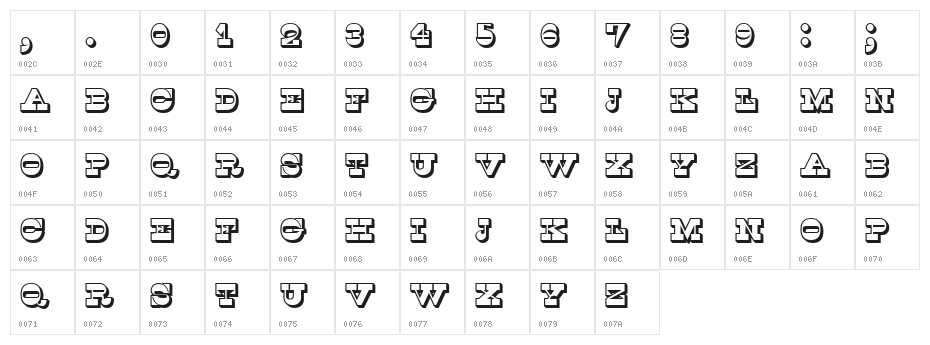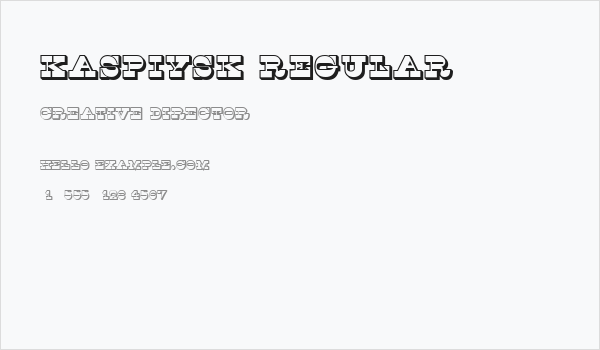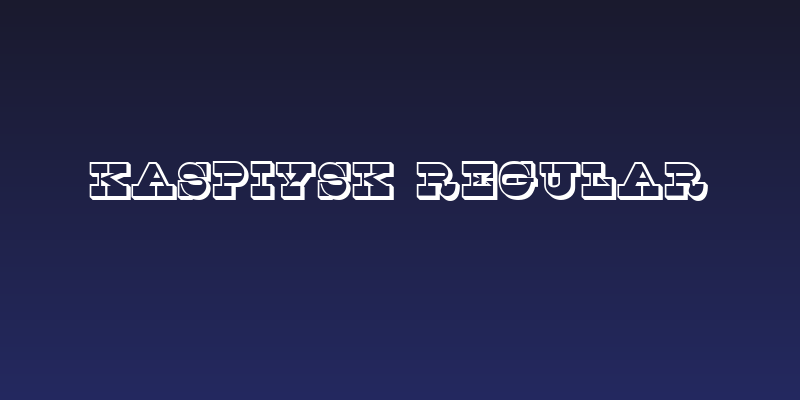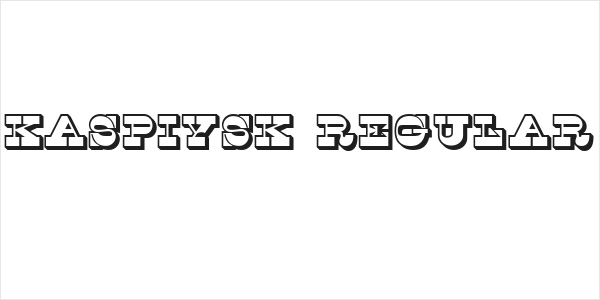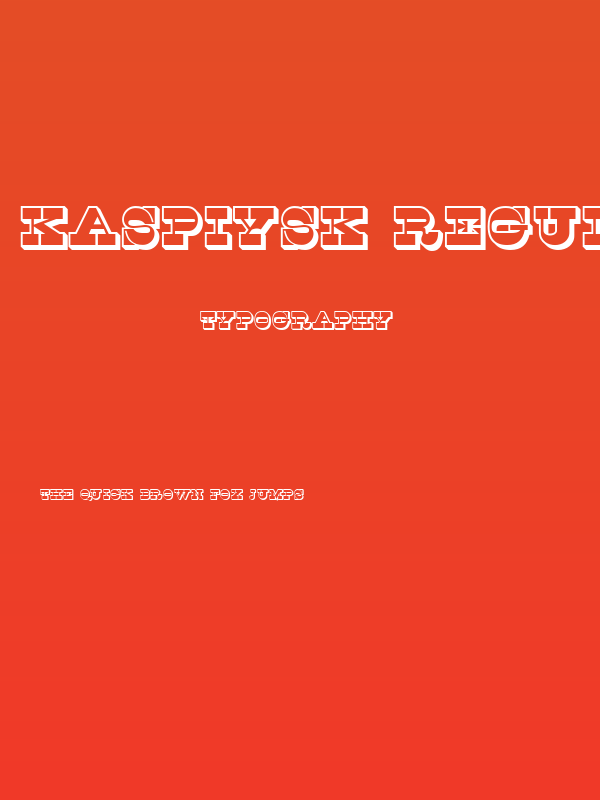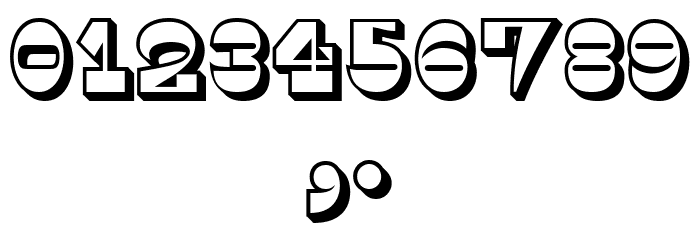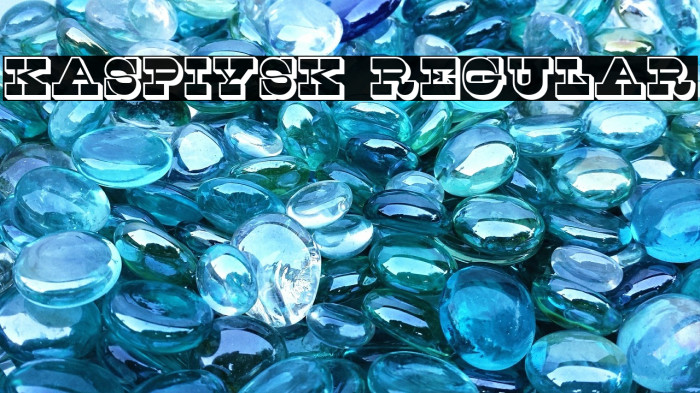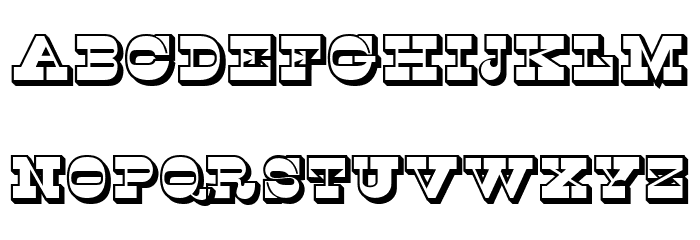
Kaspiysk Regular Font
Kaspiysk Regular Description
This font features a bold and striking design with a three-dimensional effect that gives each character a sense of depth and volume. The letters are outlined with a thick black border, enhancing their visibility and making them stand out. The interior of each character is filled with a white space, creating a contrast that emphasizes the boldness of the design. The font maintains a consistent width across all characters, providing a uniform appearance. Its geometric structure and sharp angles contribute to a modern and dynamic aesthetic, making it suitable for attention-grabbing headlines and titles.
| Proposed Projects | Ideal for posters, logos, and branding materials that require a bold and modern look. |